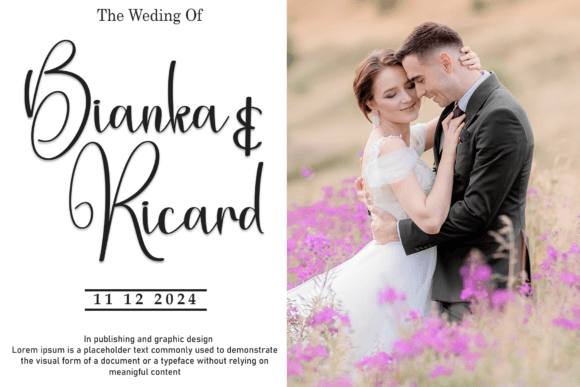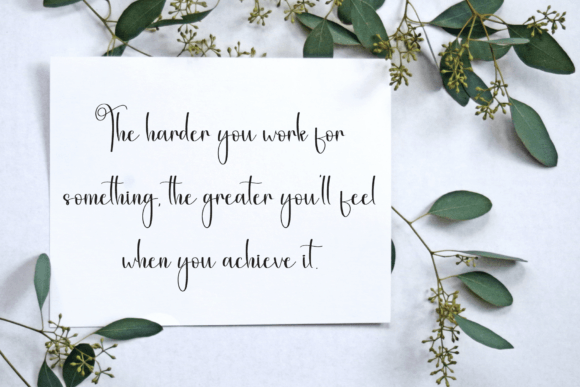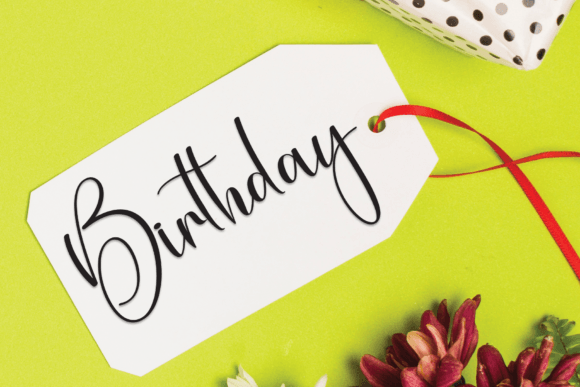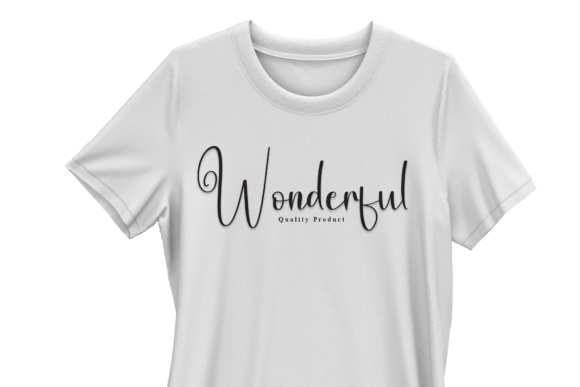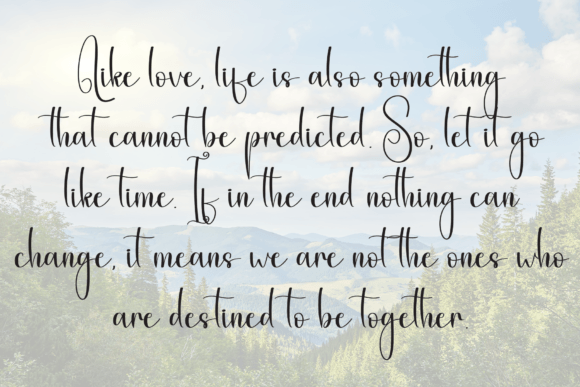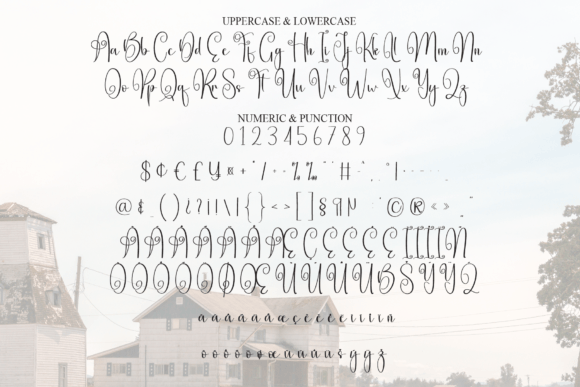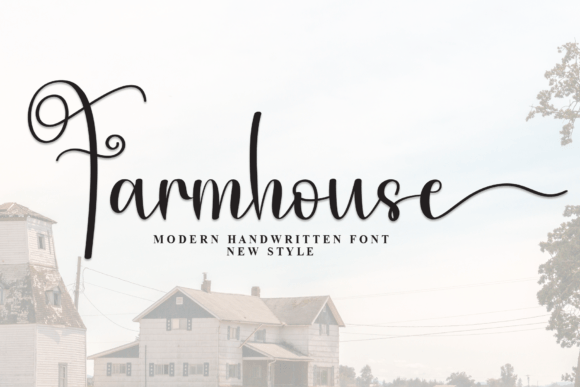
Introducing Farmhouse Font: Elevate Your Designs with Elegance and Charm
Are you a designer or crafter looking for a font that adds a touch of sophistication and elegance to your work? Look no further than Farmhouse Font, a stylish handwritten script font that exudes refinement and charm. With its fluid, graceful strokes, Farmhouse Font is perfect for a variety of design applications, from branding and invitations to stationery and more.
The Characteristics of Farmhouse Font
Farmhouse Font is a beautifully crafted handwritten script font that boasts smooth curves and a natural flow. Its fluid strokes create a sense of movement and elegance, making it perfect for designs that require a touch of sophistication. The font’s refined look is timeless, and its versatility makes it suitable for a wide range of design projects.
Perfect for Branding, Invitations, and Stationery
Farmhouse Font is an excellent choice for designers and crafters looking to add a personal touch to their work. Its elegant and refined appearance makes it perfect for:
- Branding: Use Farmhouse Font to create a sophisticated and memorable brand identity that sets your business apart from the competition.
- Invitations: Add a touch of elegance to your wedding invitations, birthday party invites, or other special occasion stationery with Farmhouse Font.
- Stationery: Use Farmhouse Font to create beautiful and refined stationery, including letterheads, greeting cards, and more.
Why Choose Farmhouse Font?
With so many fonts to choose from, why should you choose Farmhouse Font for your design projects? Here are just a few reasons:
- Elegance: Farmhouse Font exudes elegance and sophistication, making it perfect for designs that require a refined look.
- Versatility: Farmhouse Font is versatile and can be used for a wide range of design projects, from branding and invitations to stationery and more.
- Timeless: The font’s classic and refined appearance ensures that it will remain timeless and stylish for years to come.
To get the most out of Farmhouse Font, here are a few tips to keep in mind:
- Pair with other fonts: Farmhouse Font pairs well with other fonts, including serif and sans-serif fonts. Experiment with different pairings to find the perfect combination for your design.
- Use for headlines and titles: Farmhouse Font is perfect for headlines and titles, where its elegant and refined appearance can shine.
- Experiment with colors: Farmhouse Font looks beautiful in a variety of colors, from classic black and white to bold and bright hues. Experiment with different colors to find the perfect look for your design.
Farmhouse Font is a stylish and elegant handwritten script font that is perfect for designers and crafters looking to add a touch of sophistication to their work. With its fluid, graceful strokes and timeless, refined appearance, Farmhouse Font is suitable for a wide range of design projects, from branding and invitations to stationery and more. Whether you’re looking to create a memorable brand identity or add a personal touch to your stationery, Farmhouse Font is an excellent choice.